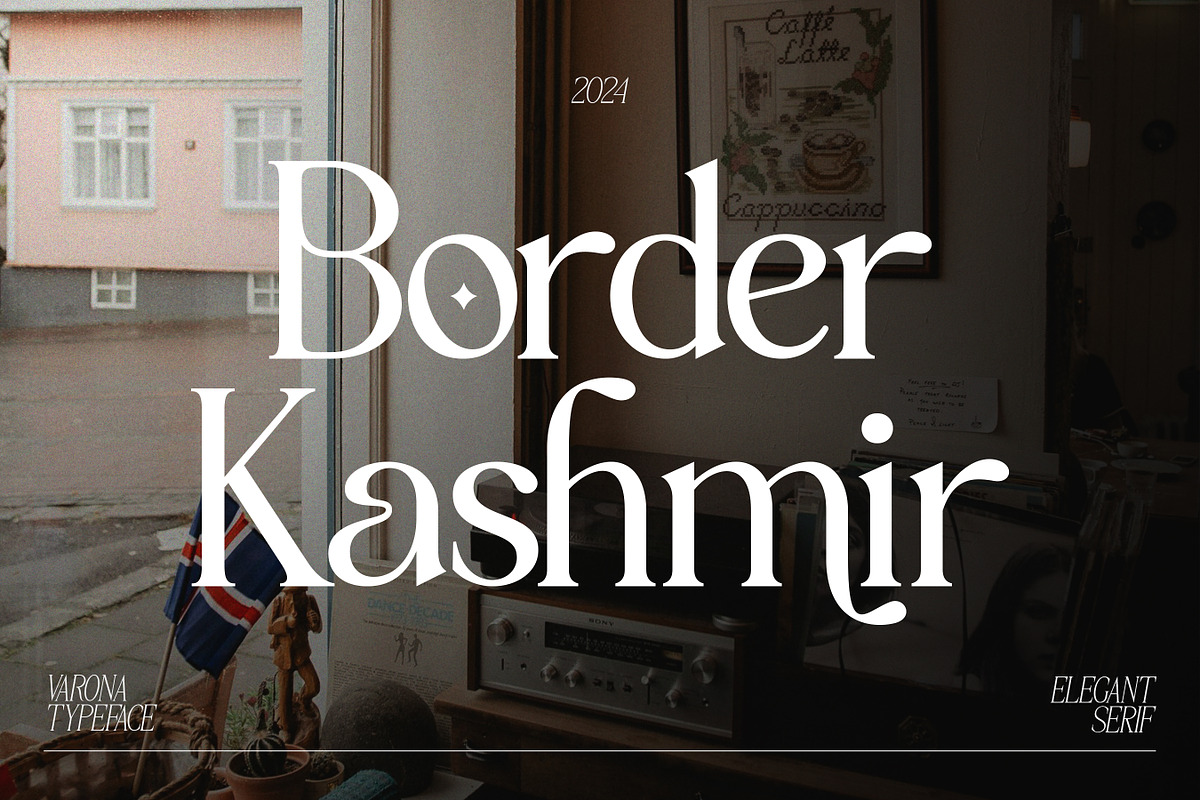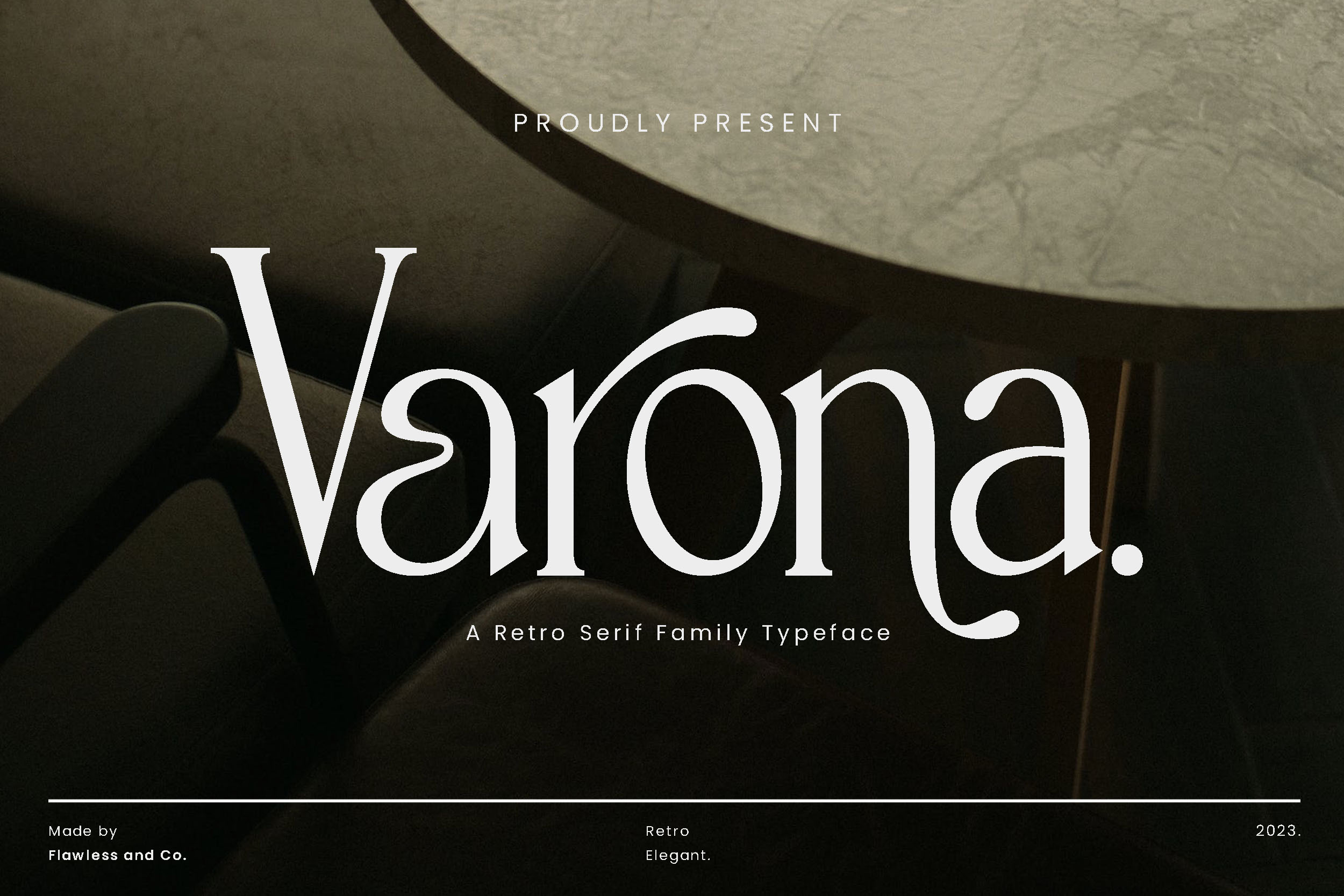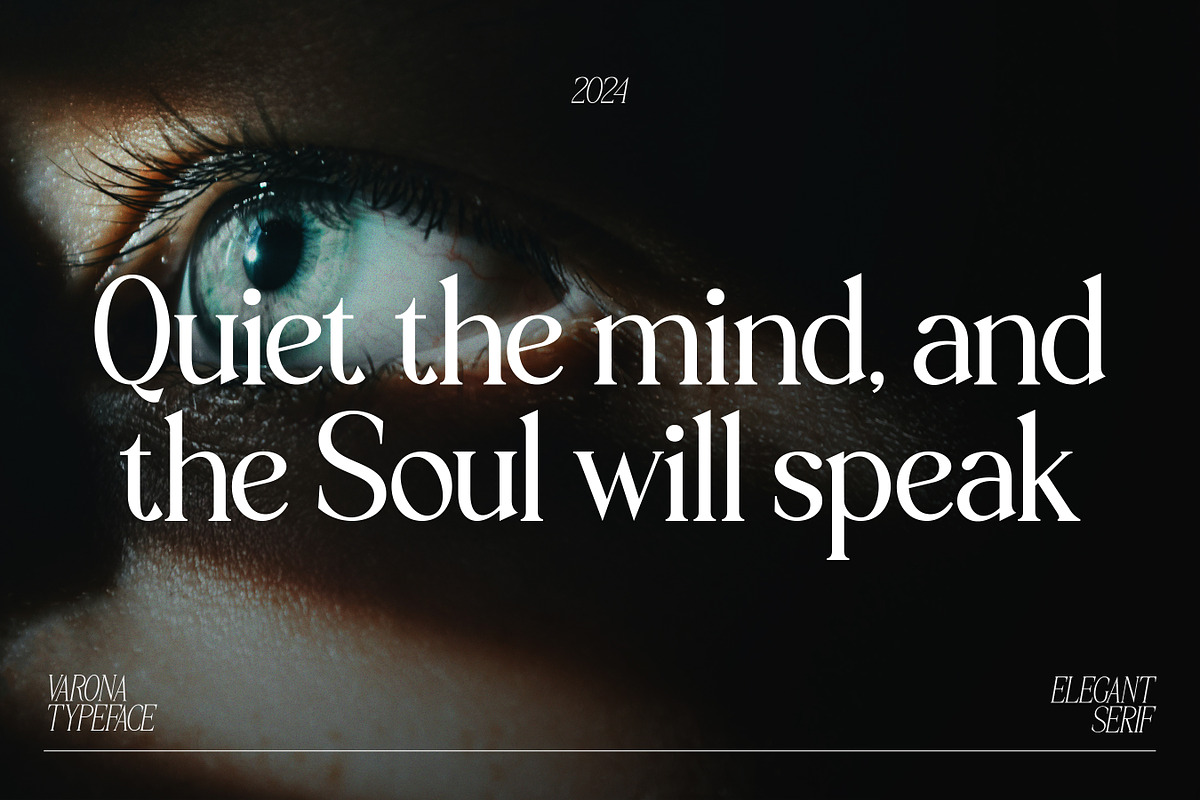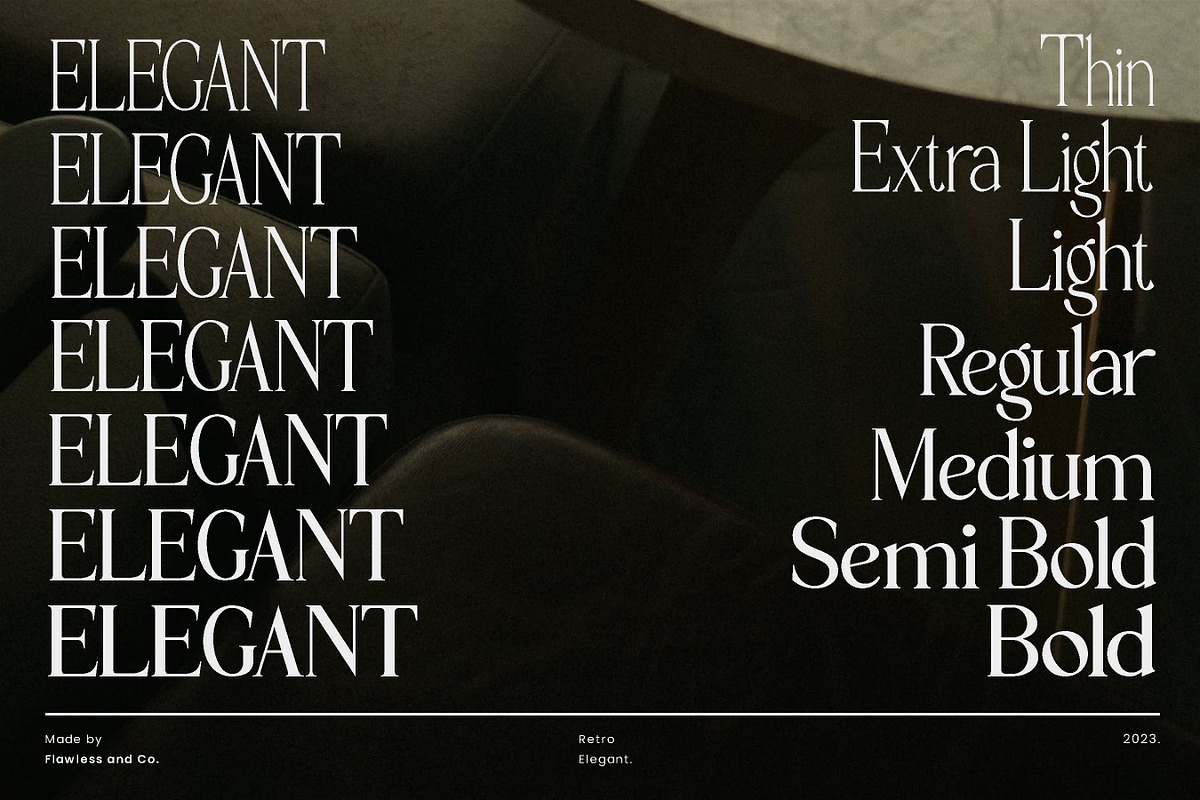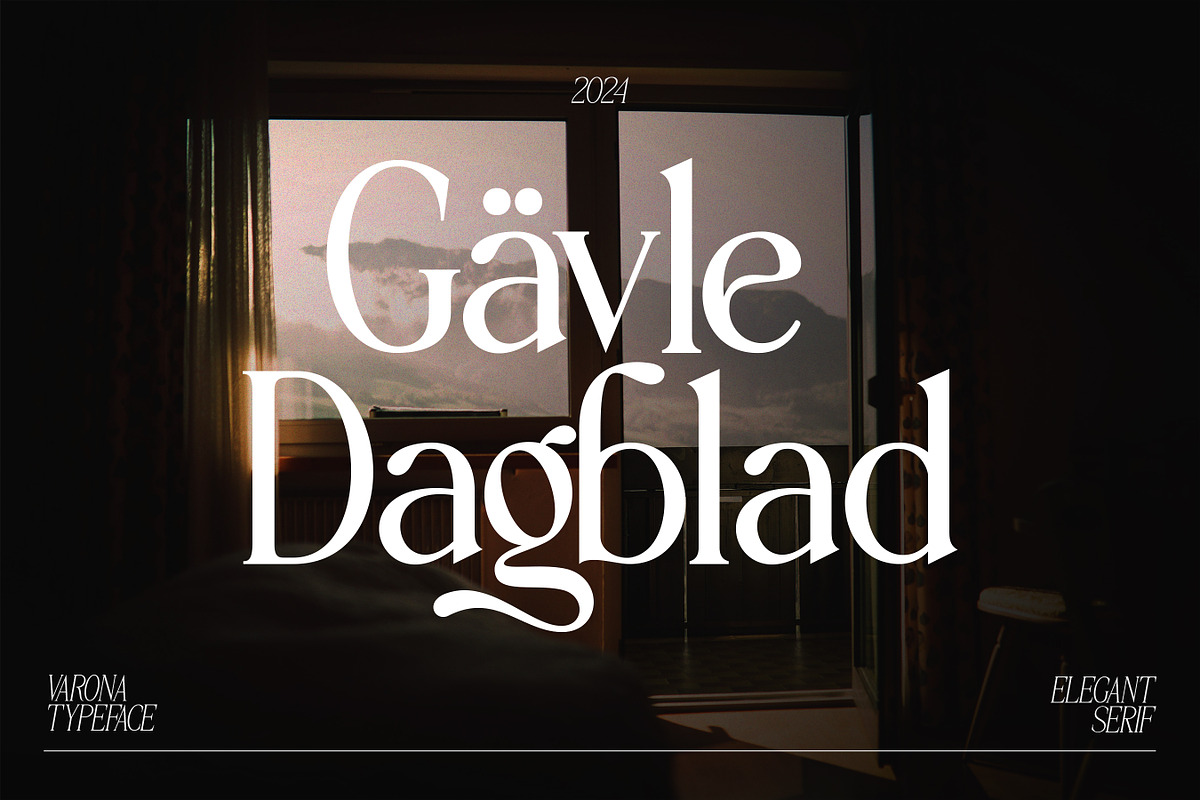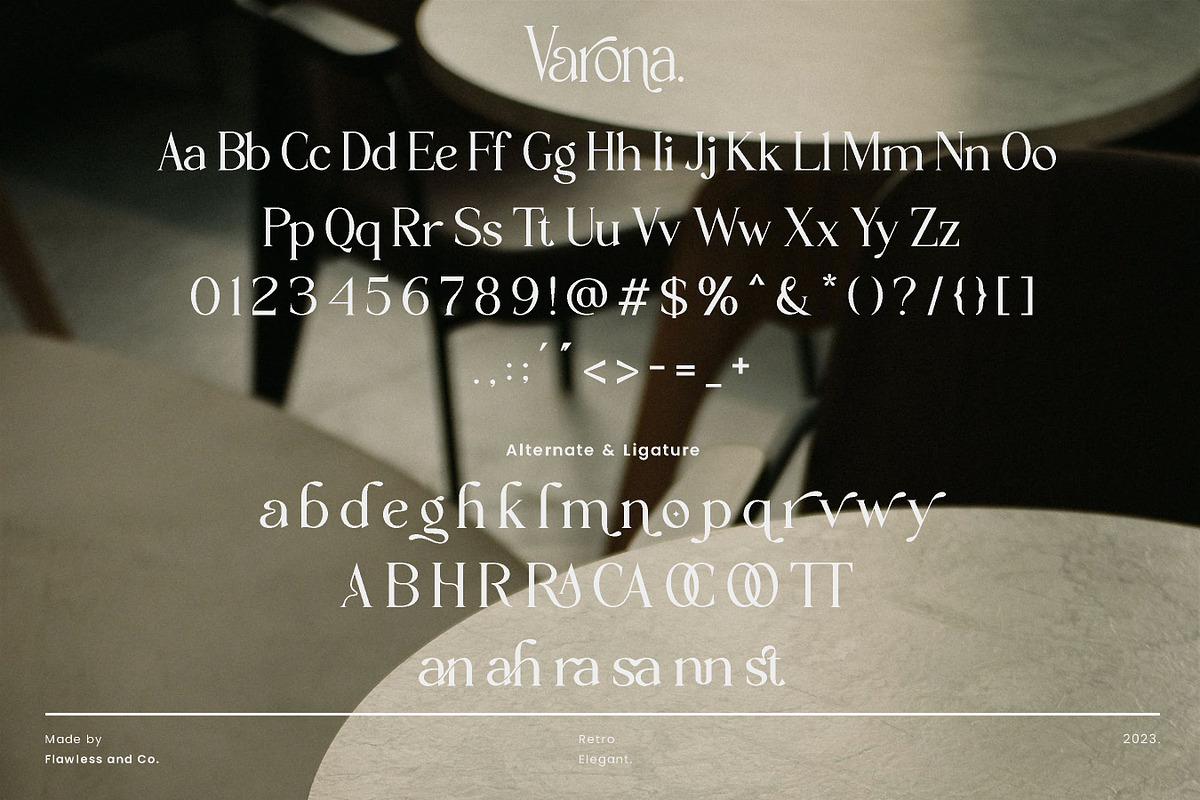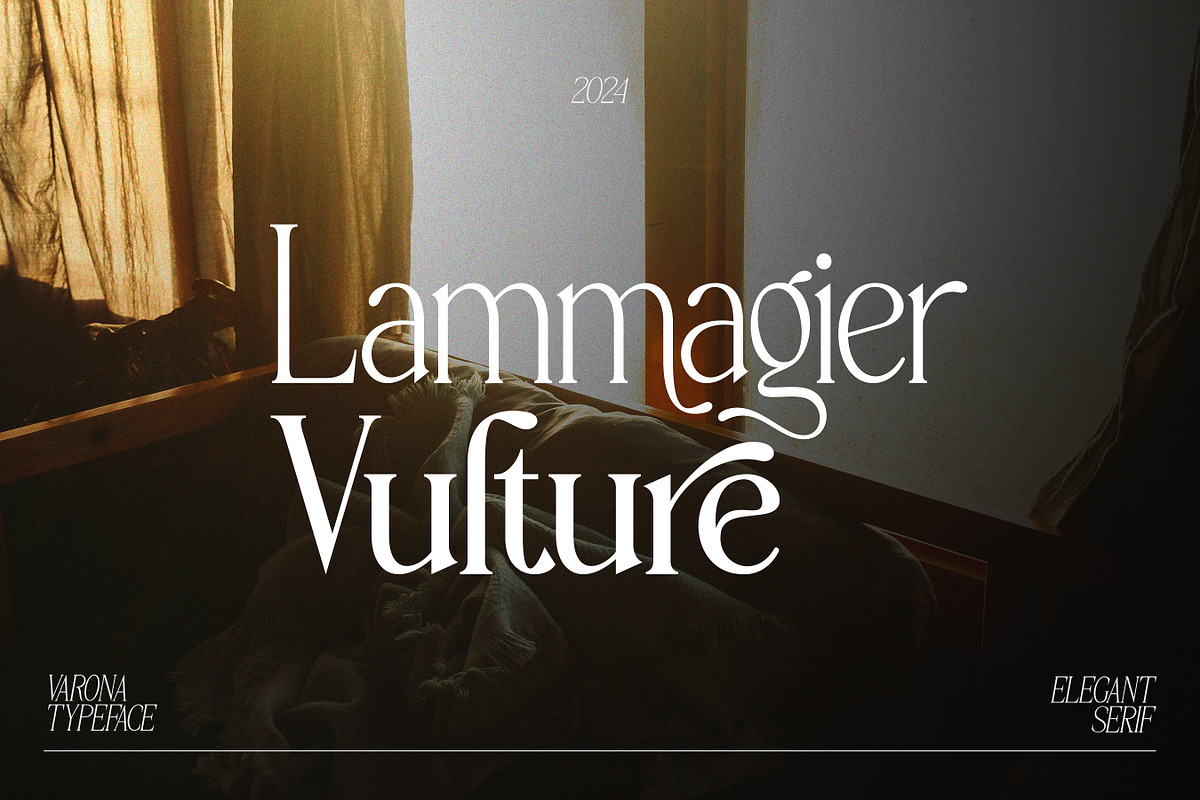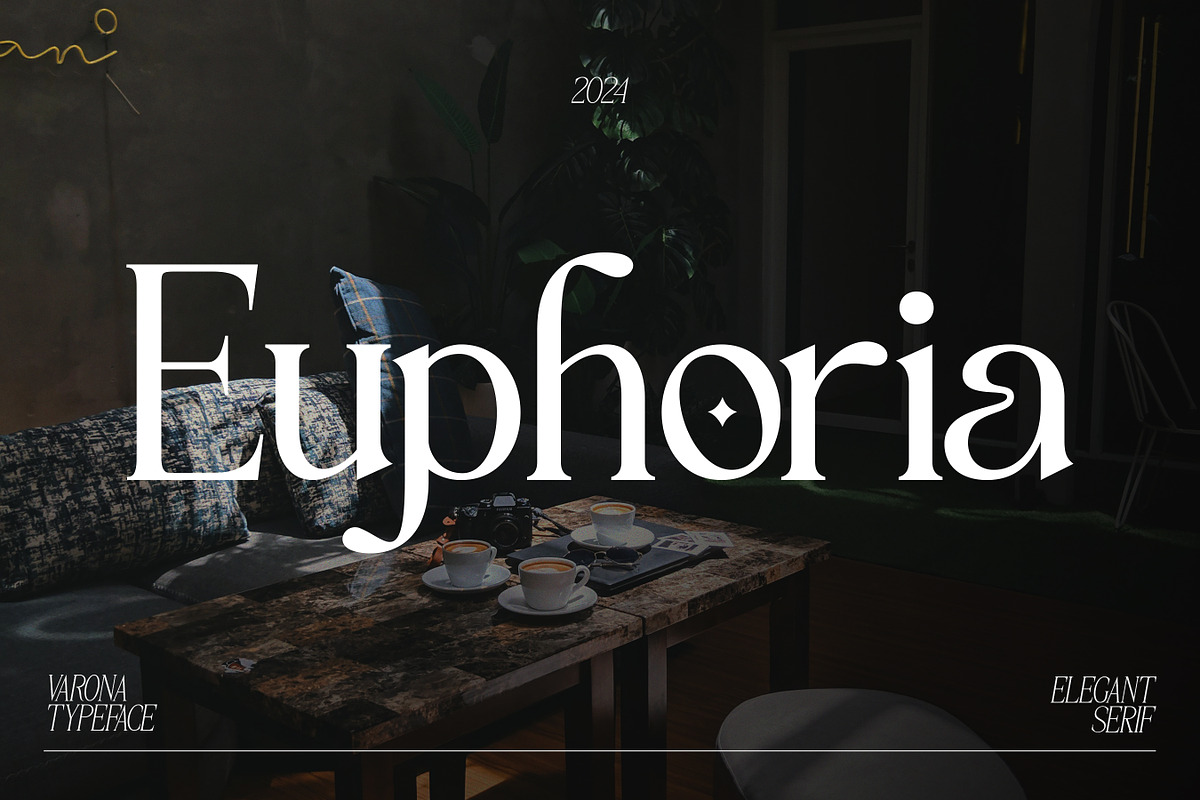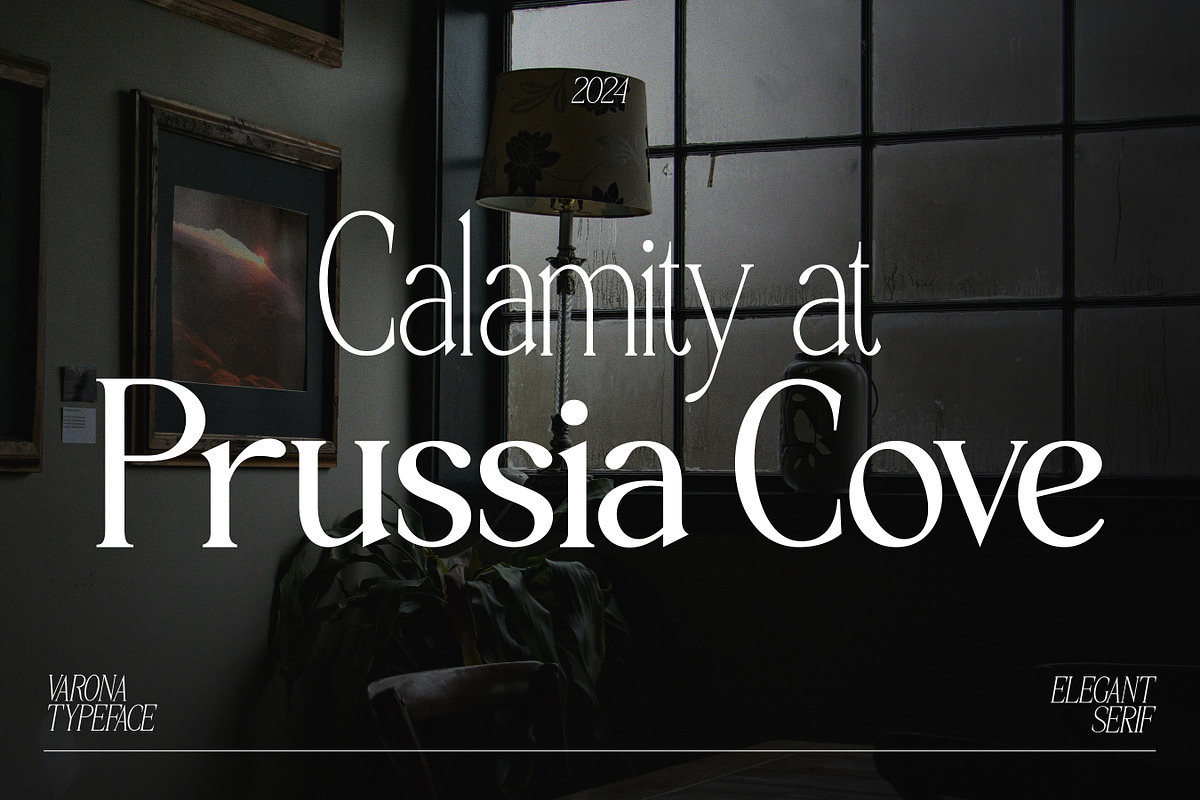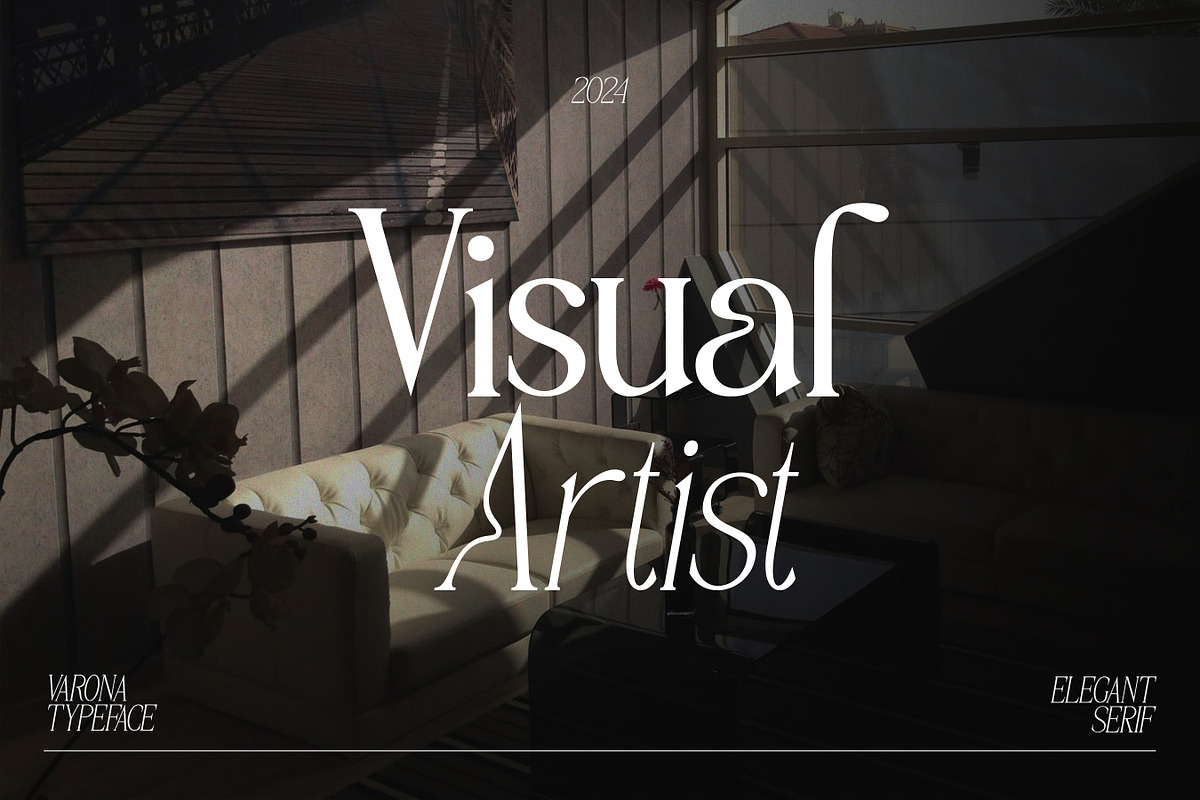
Varona - Retro Serif Family Font
Introducing "Varona - Retro Serif Family Font". Dive into the diverse world of typography with "Varona", a comprehensive typeface that goes beyond conventional limits. This font family is a symphony of styles, offering Thin, Extra Light, Light, Regular, Medium, Semi-Bold, and Bold variants, allowing you to craft designs that resonate with precision and personality. Explore the Versatility of Minims Retro Serif Family Series Font!
Multilingual Uppercase alphabet A-Z Lowercase alphabet a-z Numbers 0-9 Some punctuation